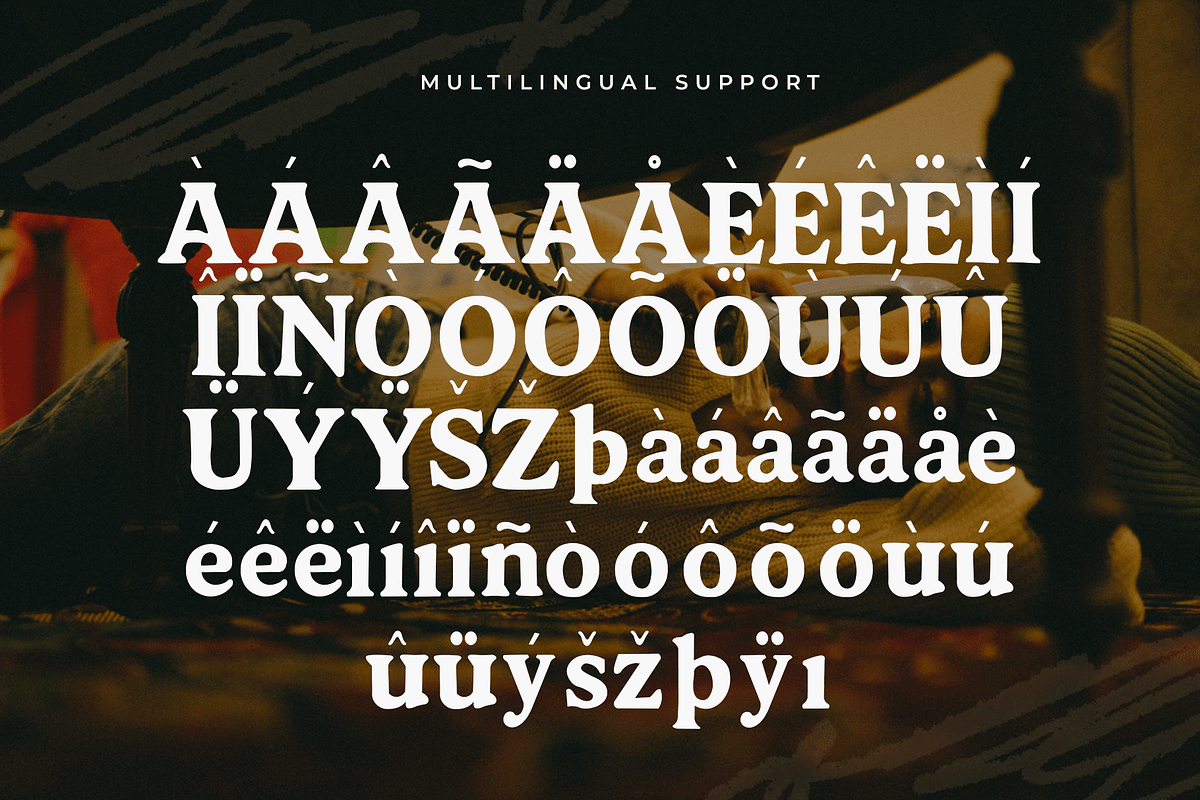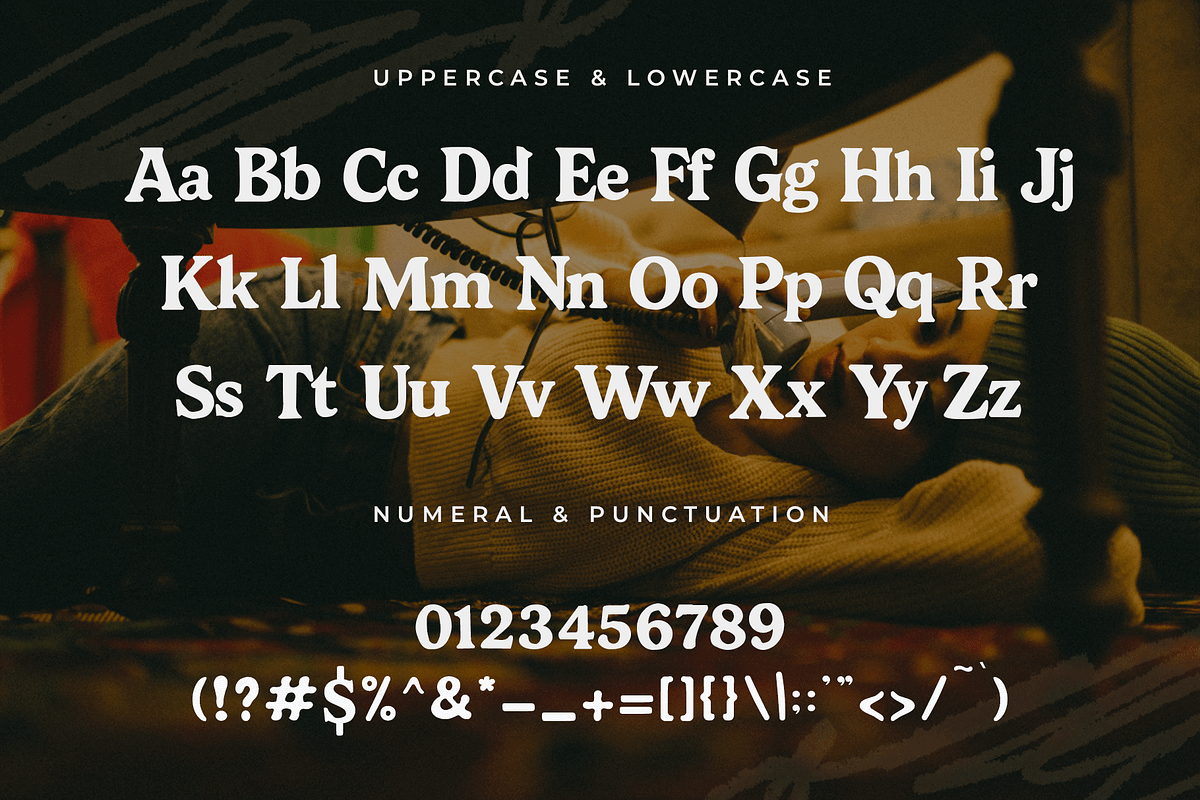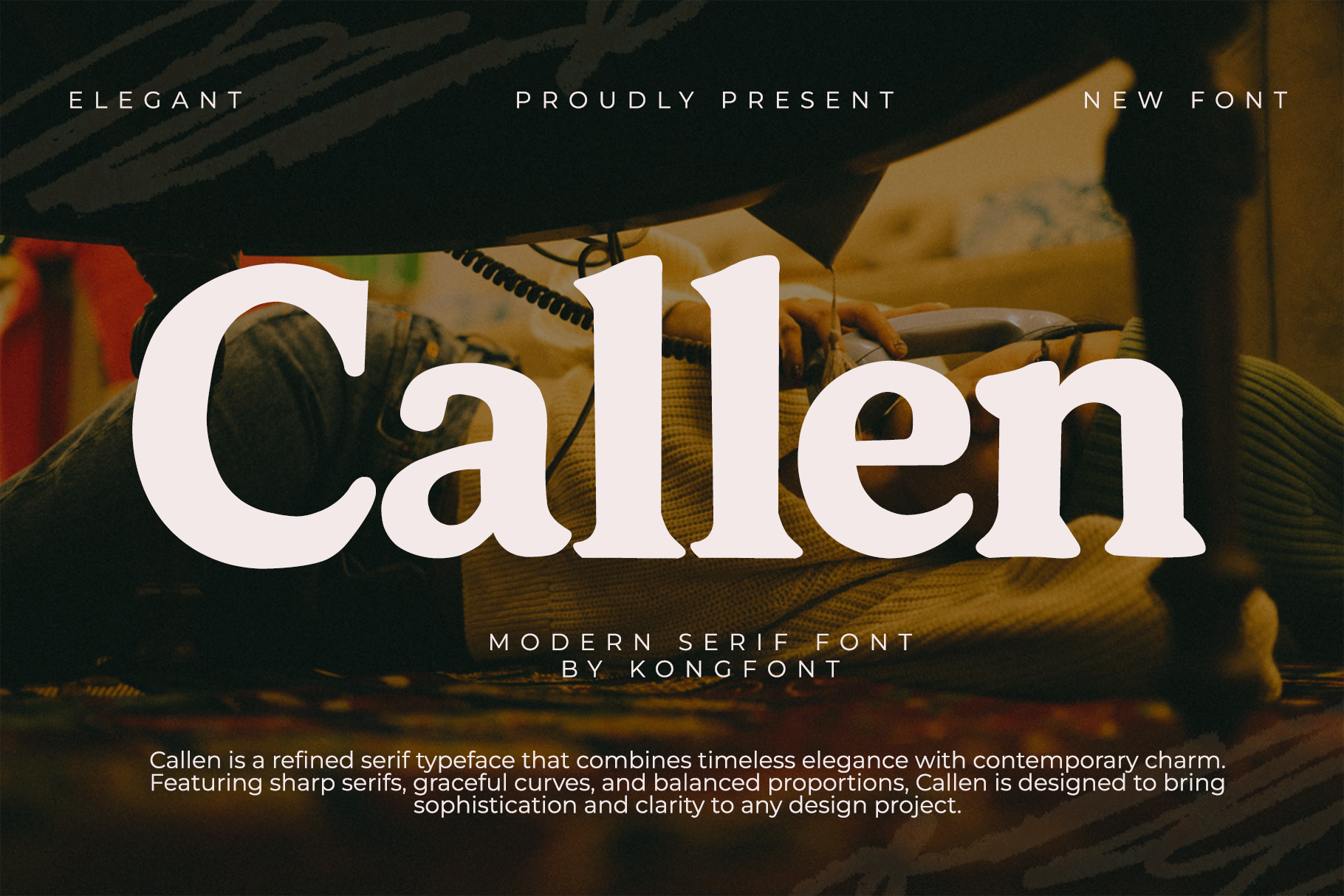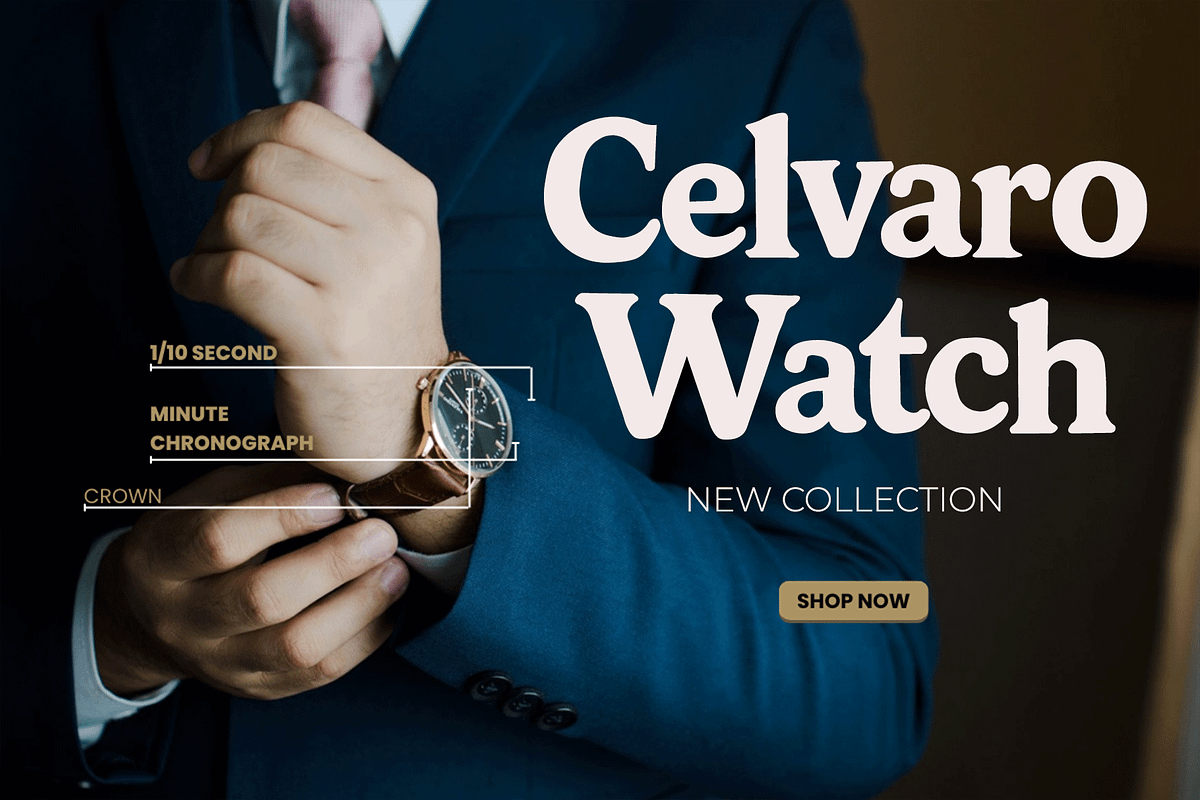
Callen – Modern Serif Font
Introducing Callen, a modern serif font that blends classic sophistication with a clean, contemporary touch. Its refined letterforms and elegant proportions make it a versatile choice for designers who value both tradition and innovation in their typography.
Callen offers sharp serifs, balanced spacing, and a sleek aesthetic that enhances readability while maintaining a luxurious look. Perfect for branding, editorial design, packaging, invitations, and logos, this font adds a professional and stylish tone to any visual project.
Crafted with precision, Callen includes uppercase and lowercase letters, numerals, punctuation, and multilingual support—making it suitable for both print and digital design. Whether you’re creating a high-end fashion label or a modern lifestyle brand, Callen delivers the perfect blend of grace and authority.